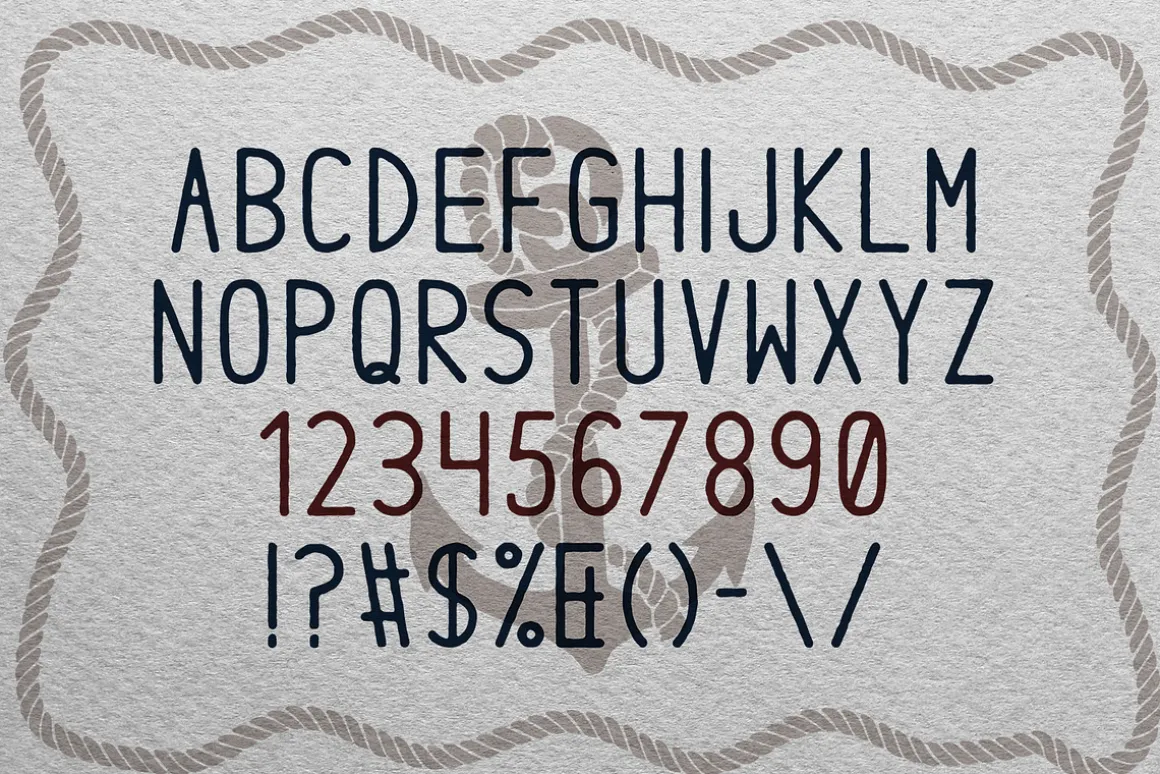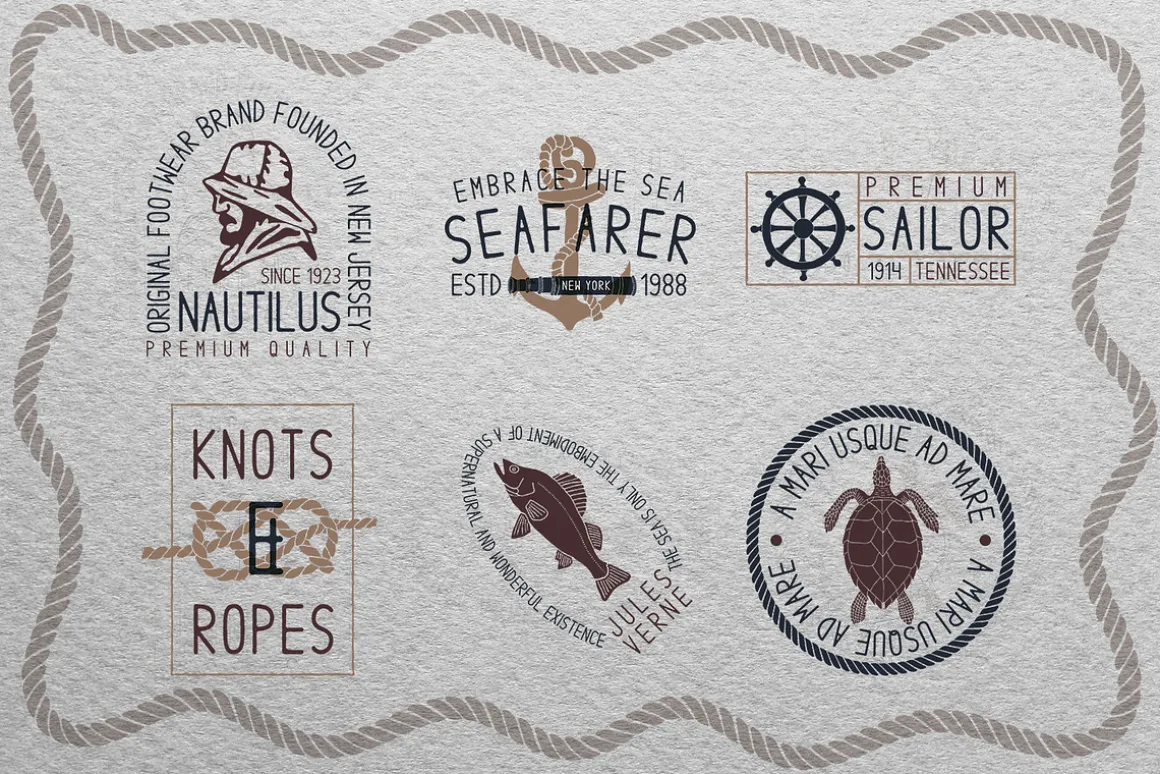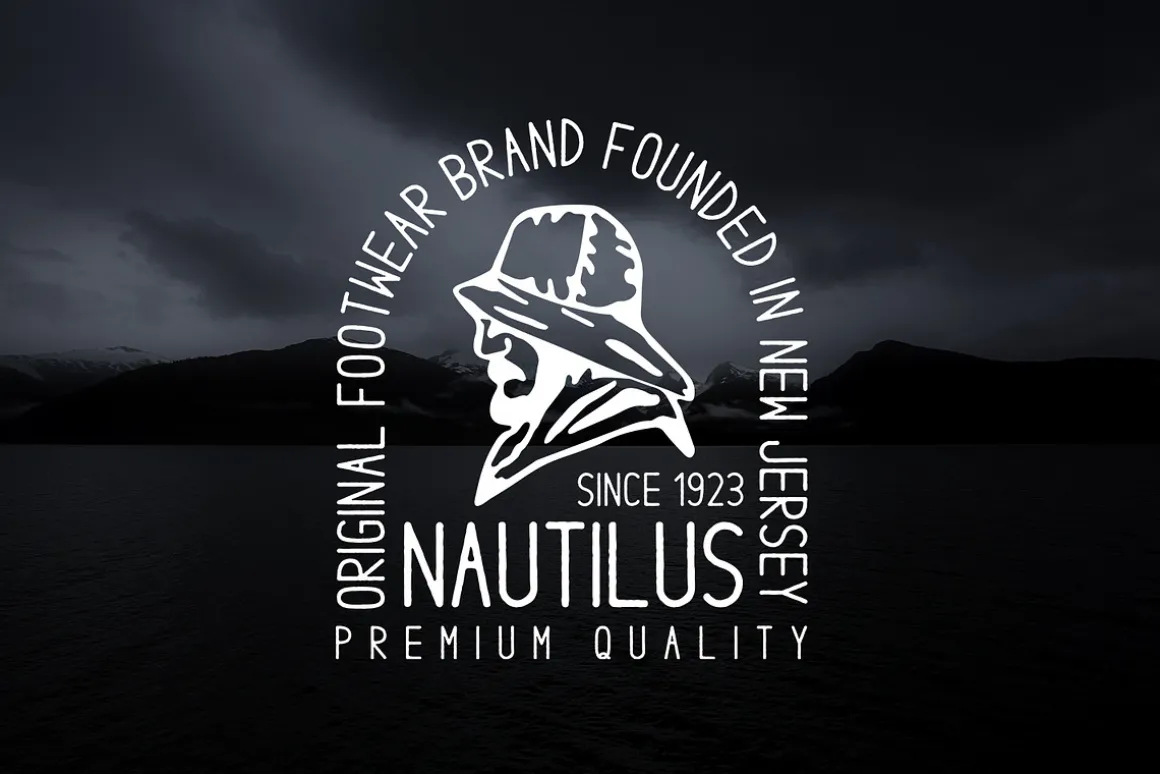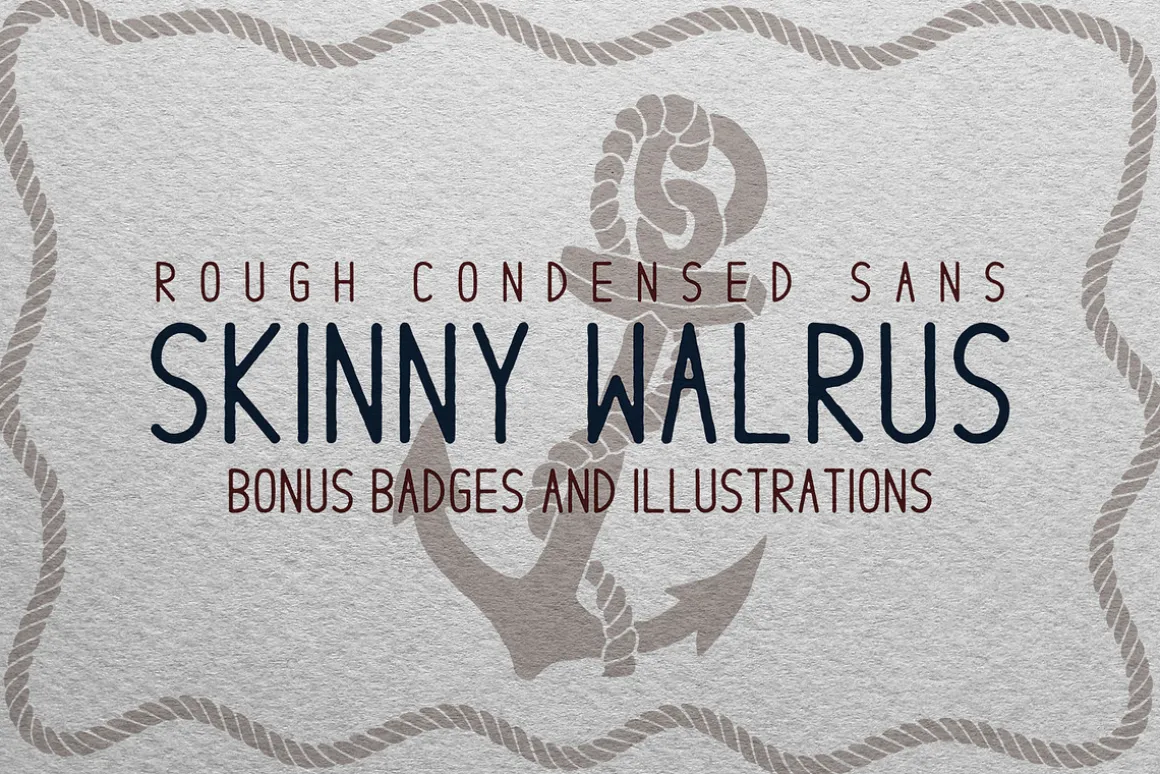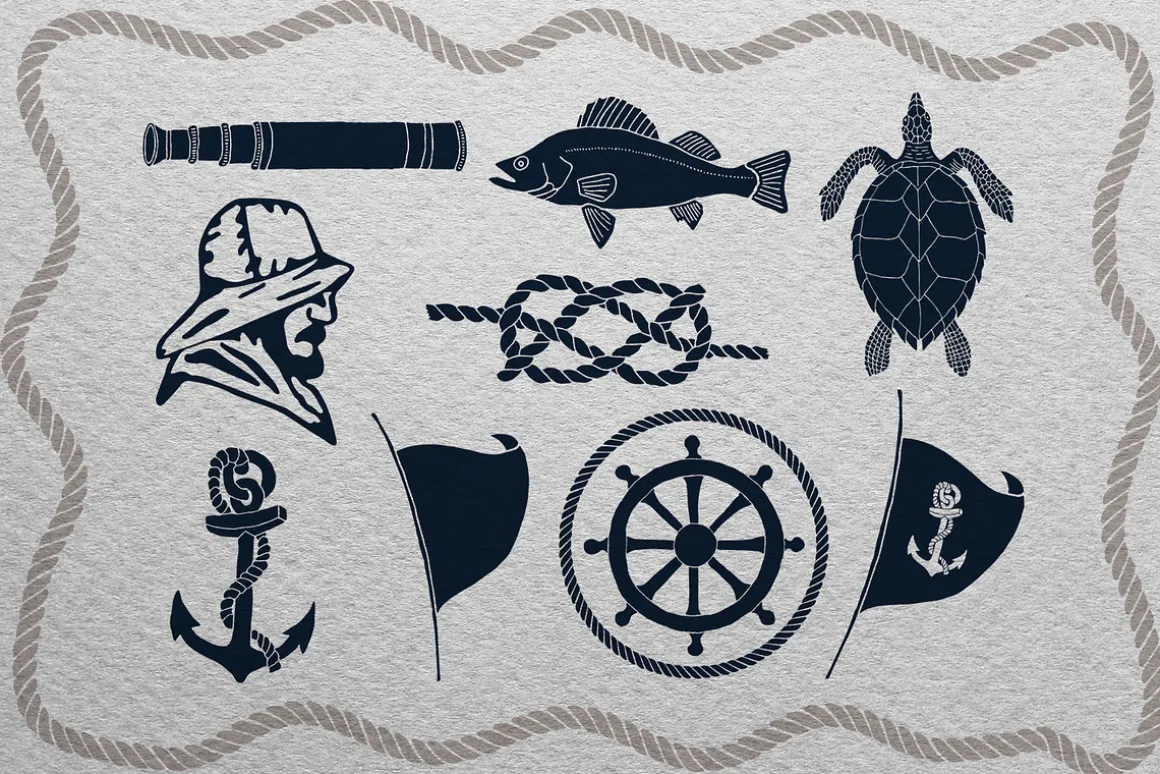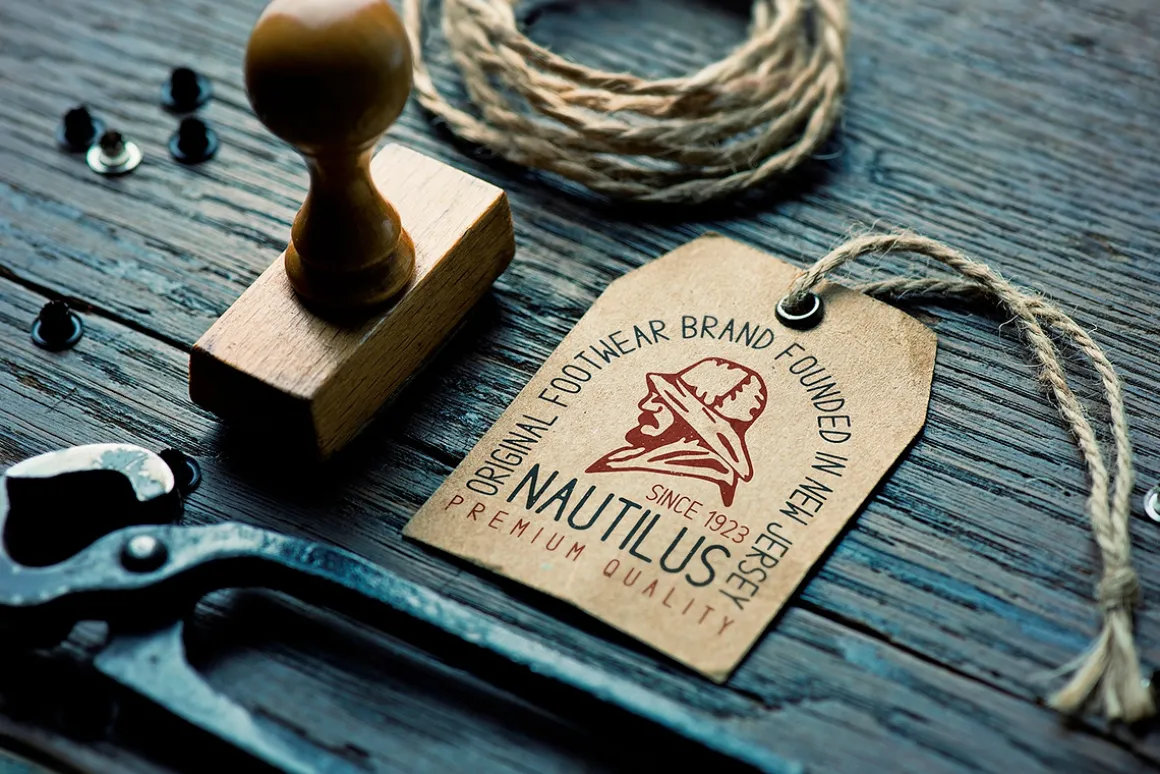
Skinny Walrus is a slim condensed display font with rough lines and smooth edges perfect for vintage badges and t-shirts. Most of the characters are of the same width, so you’ll feel at ease aligning such trendy logo elements as “TRD MRK” or “ESTD 2005”.
The package also includes 3 bonus badge templates, 3 logo templates and 10 hand-drawn illustrations soaked with salty sea air.